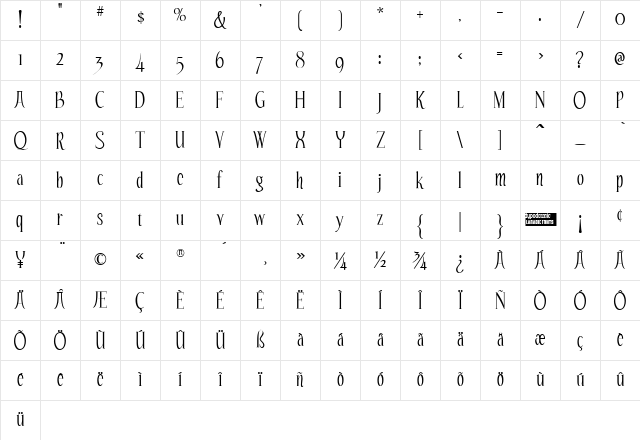
Echelon Regular
Design Context for Echelon
Echelon is a composed and adaptable typeface that performs quietly and consistently across a wide range of design contexts.